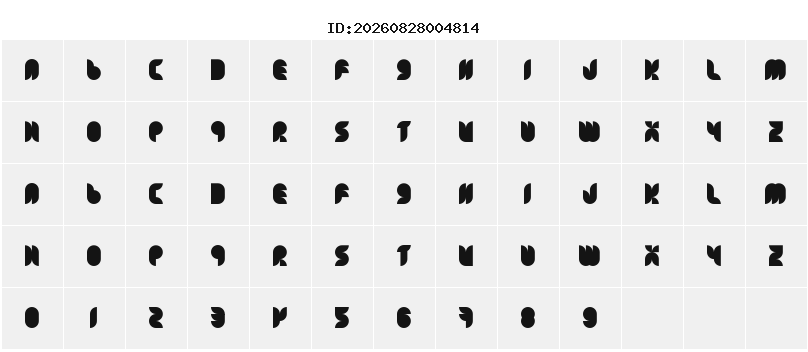
• Font Name: Tulipe
• Full Font Name: Tulipe
• Designer: Ewen Prigent
About Tulipe.ttf
Tulipe.ttf is a modern, elegant sans-serif font designed for ultimate readability and visual harmony. Perfect for branding, headlines, web design, and print materials.